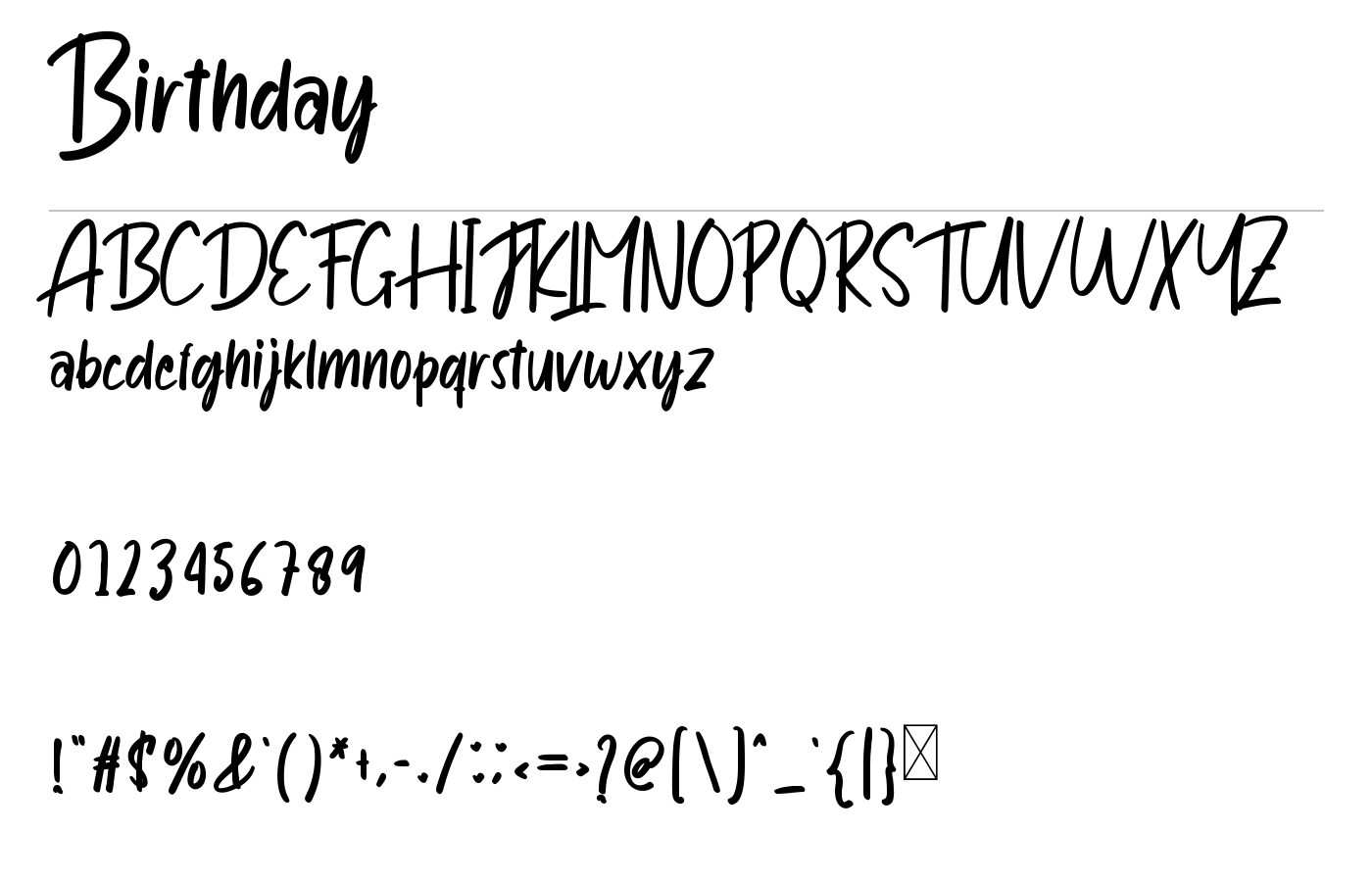
Birthday Font is a lively and casual handwritten script with a playful, friendly vibe. Its tall, narrow letterforms and slightly irregular strokes create an energetic and personal feel, making it ideal for informal designs like party invitations, greeting cards, and youthful branding. This font’s approachable style works best for headlines and display text where warmth and spontaneity are desired.
Birthday Font
About Birthday Font
| Font family | Birthday Font |